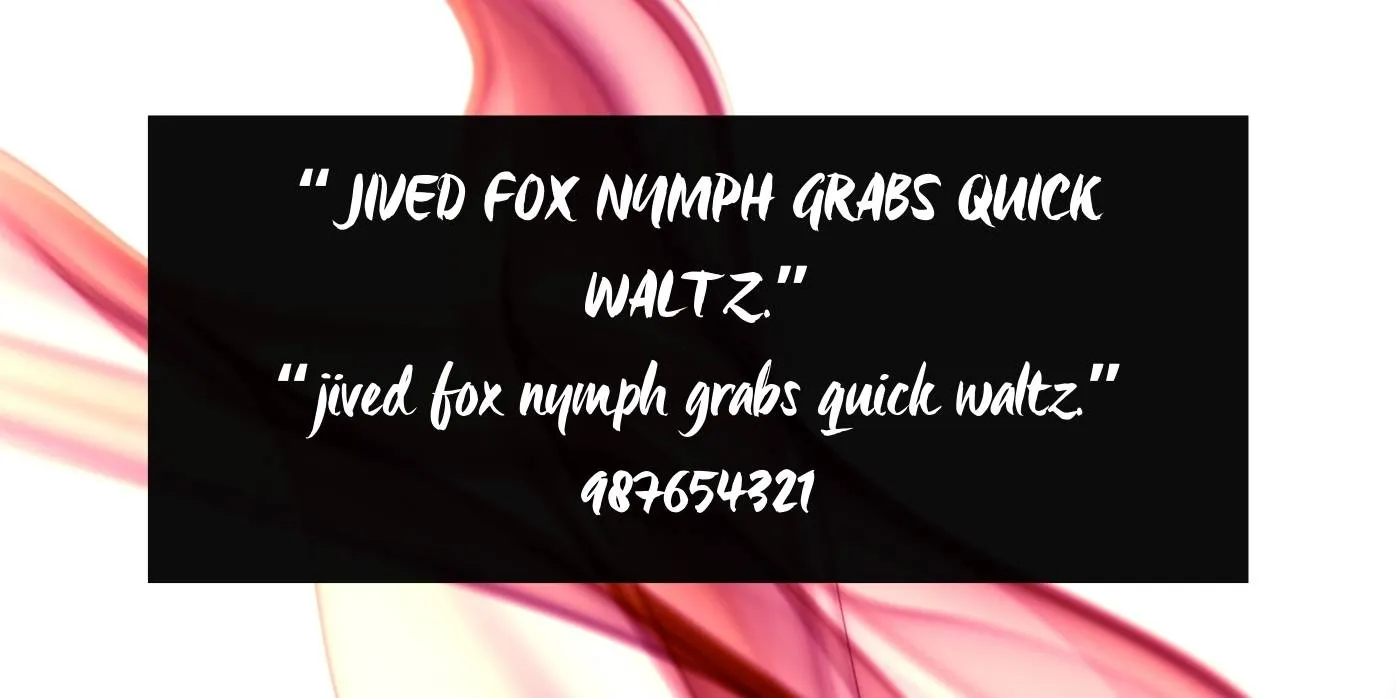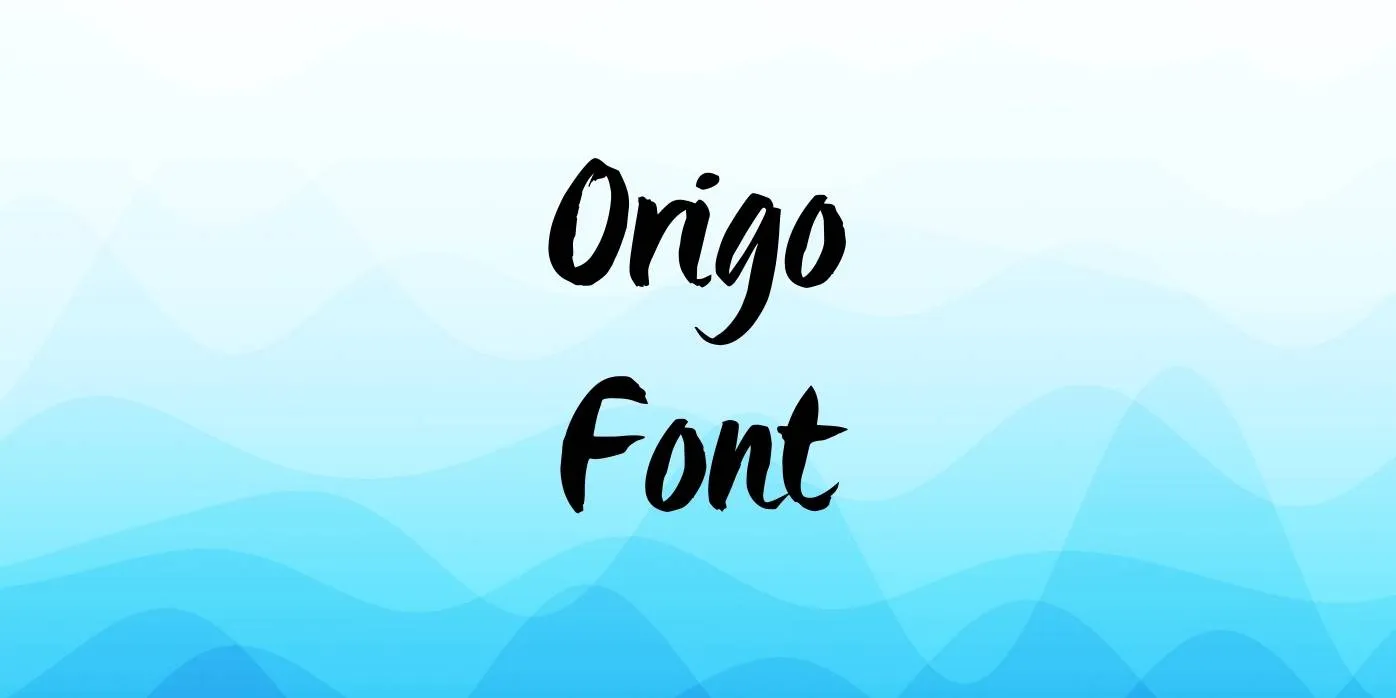
≠Origo Font
It is a very nice and beautiful brush font. Origo Font was designed by Joe VanderHam and it was published by Greet Dijkers. Copyrights © Greet Dijkers. It has 64 glyphs and 1000 units per Em.
The Weight of the font is Bold and the width of the font is Medium(normal). Mac style is followed by this font is also Bold. It follows directions only from left to right including neutrals. The patterned nature of this font is italic.